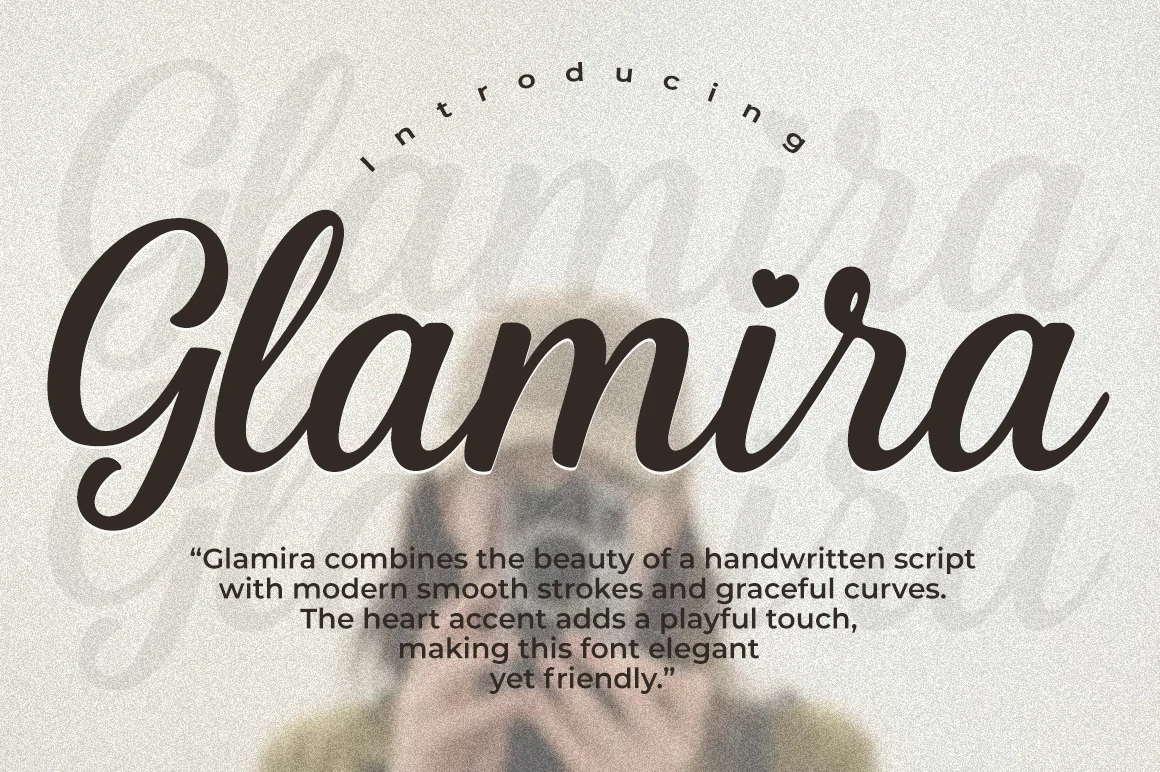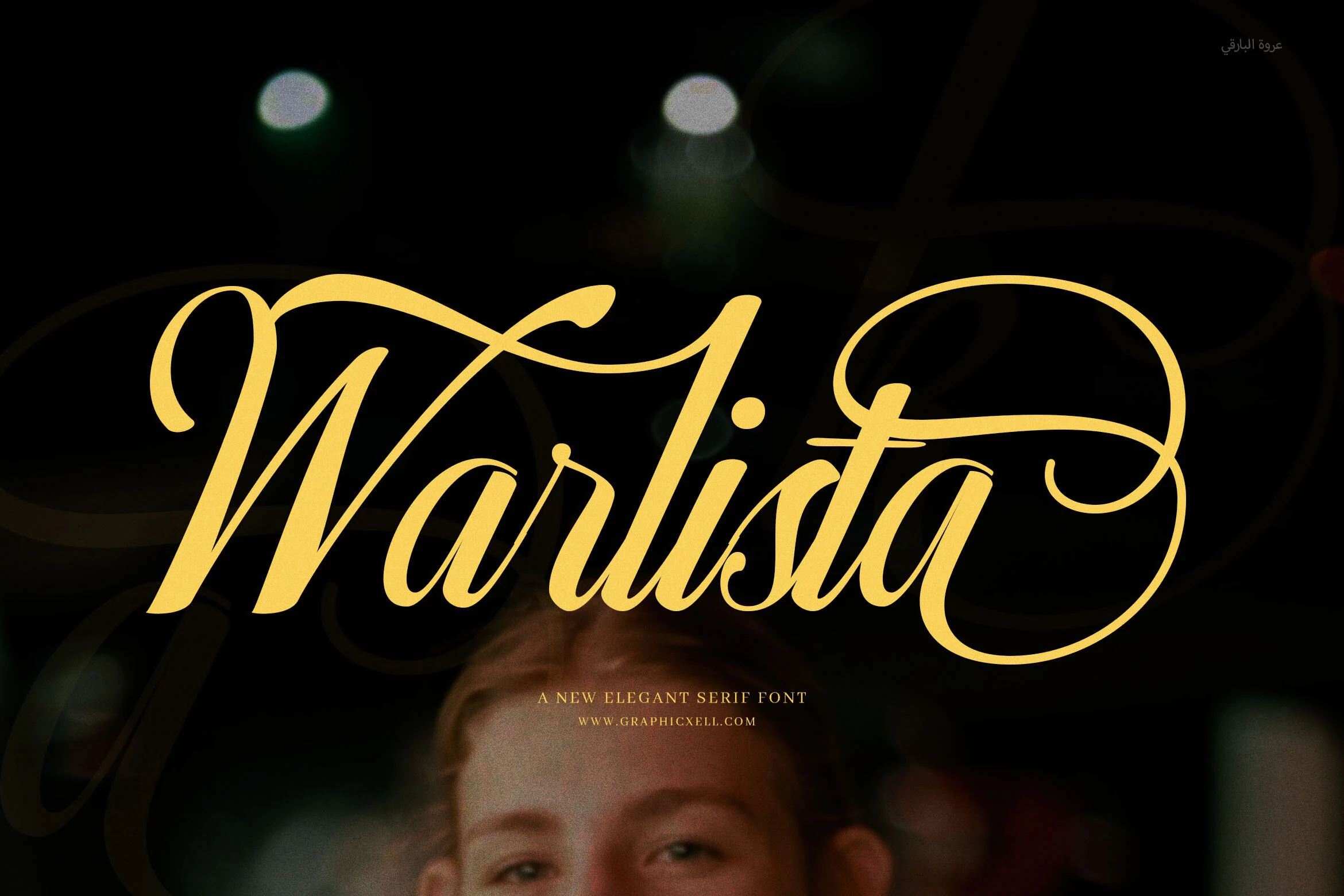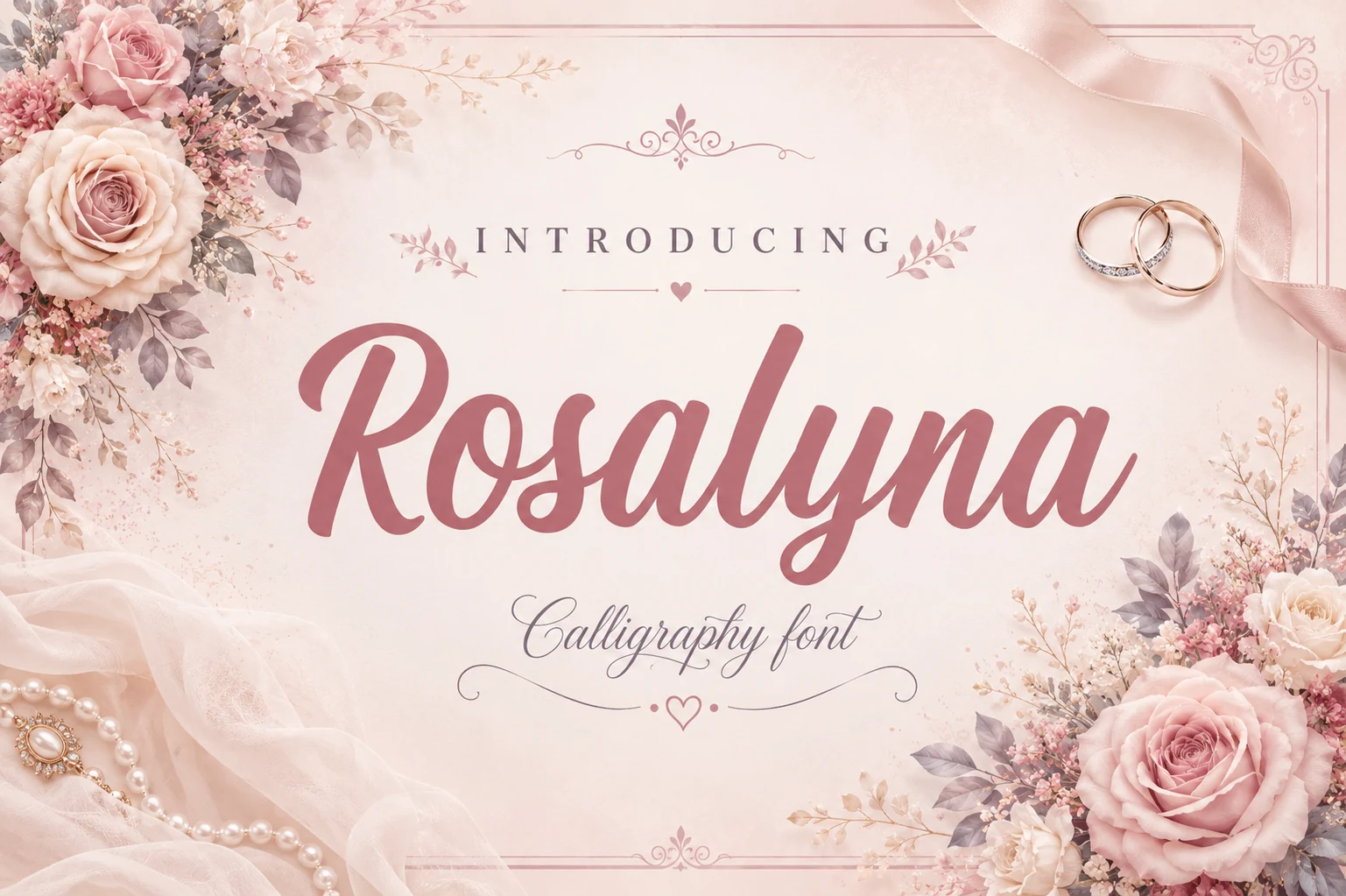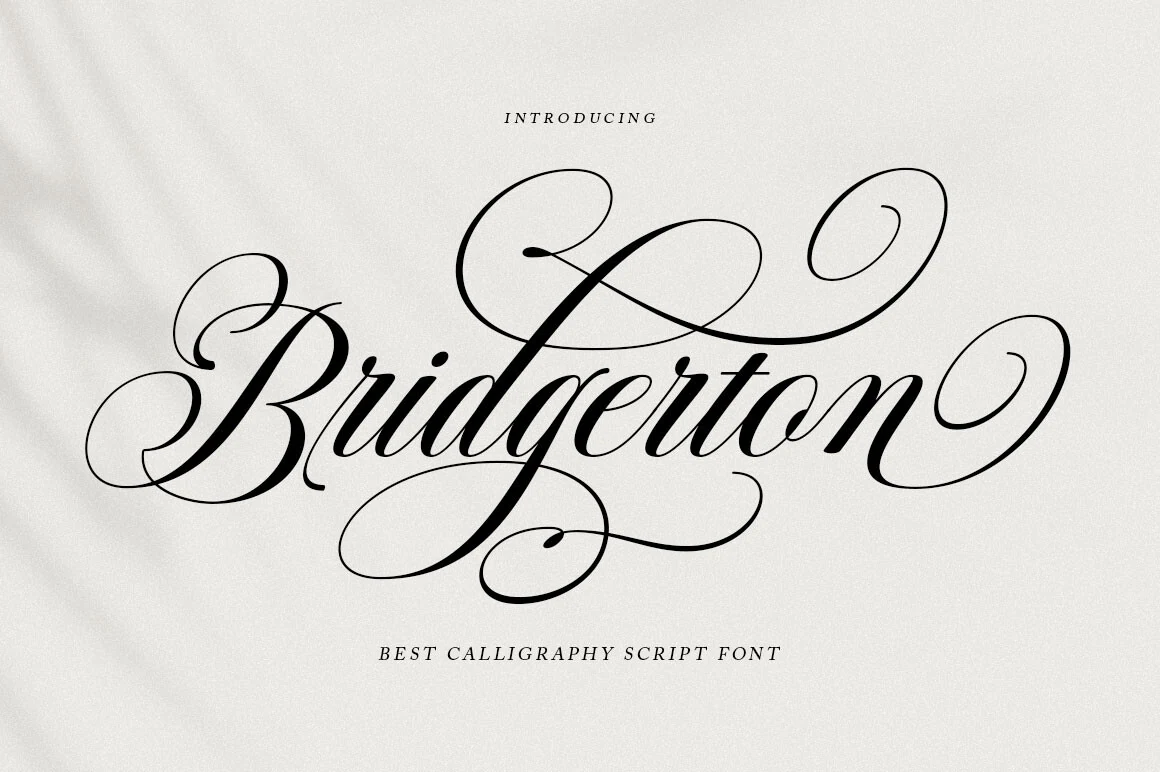
Modern Script Fonts: 19 Stunning Picks for Branding
Modern script fonts help designers build polished logos, invitations, packaging, social graphics, and brand identities with handwritten movement. This collection focuses on clean signature styles, romantic calligraphy, and bold brush scripts that still feel current and usable.
Elegant Signature Modern Script Fonts
These modern script fonts use lighter strokes, clean monoline flow, and signature-style movement for refined logos, personal brands, invitations, and elegant headers.
Royal Wedding Font
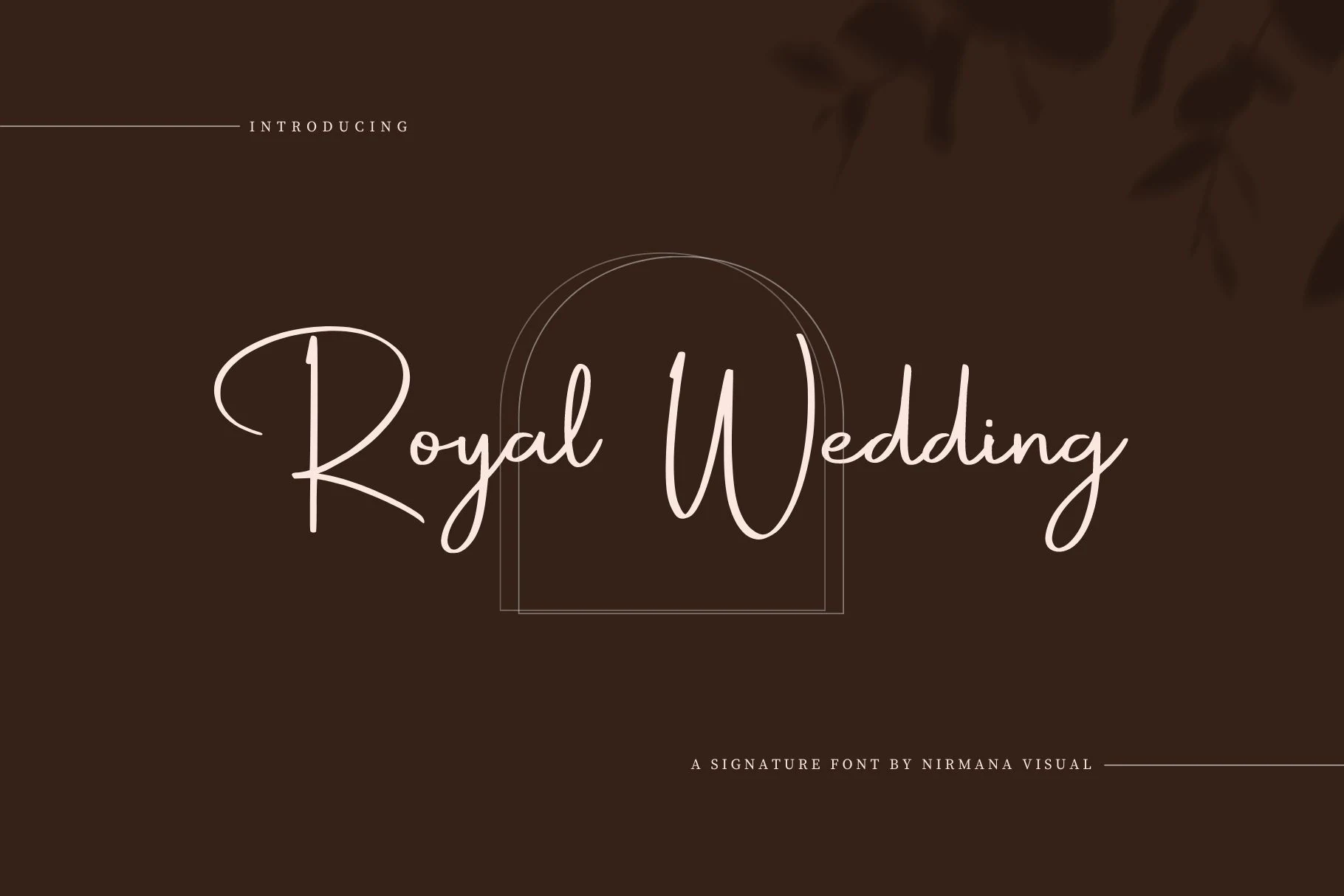
Best For: logos, invitations, wedding designs, personal branding
Royal Wedding Font has a light signature-script feel, built from slim strokes, oversized capitals, and long looping terminals that give the lettering a poised handwritten rhythm. The tall R and W create instant hierarchy, while the even line weight keeps the style soft rather than overly formal.
Within Modern Script Fonts, it suits short names and elegant wordmarks best. Leave a bit of breathing room around the capitals and use it at display size, since the delicate lines and extended loops read most clearly when they are not competing with dense supporting text.
Halimun Font
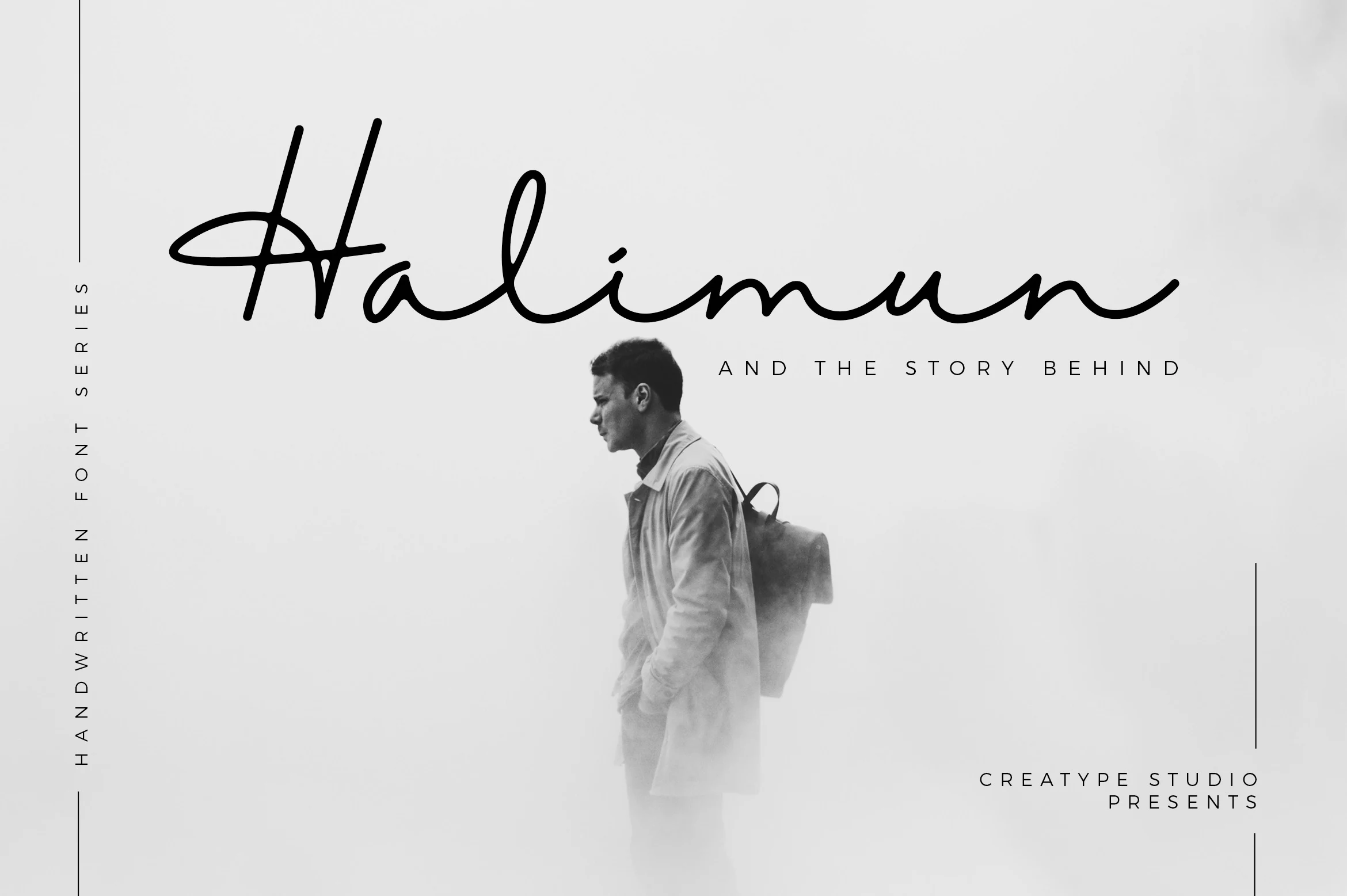
Best For: logos, branding, website headers, personal branding
Halimun Font has a clean monoline script style with tall ascenders, airy connections, and a long gliding rhythm that feels polished without losing its handwritten warmth. The capital H gives it a memorable entry, using a broad flourish that adds character while keeping the word easy to read.
In Modern Script Fonts, Halimun works especially well for logos and headers where the line quality can stay visible. Pair it with small uppercase sans text for contrast, and avoid crowding the letters, since the generous width and smooth joins create a calmer, more refined title hierarchy with a bit of space around them.
Shake Font
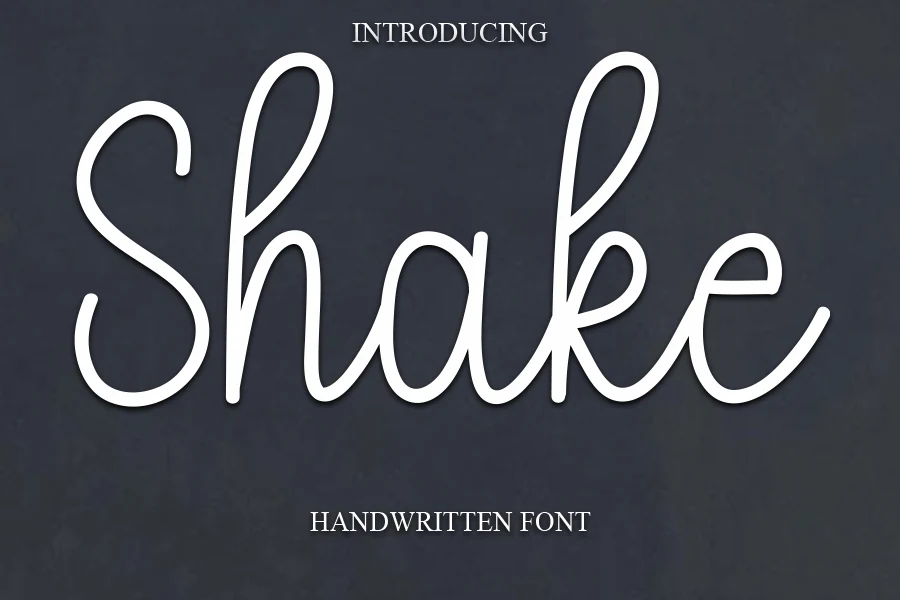
Best For: logos, invitations, wedding designs, personal branding
Shake Font has a light monoline script style with tall looping ascenders, a broad open S, and rounded connections that keep the lettering soft and easygoing. The strokes stay slim and even, giving it a clean handwritten feel that looks polished without becoming stiff.
For Modern Script Fonts, this one works best when the long verticals and open curves have room to breathe. It suits short branding lines, names, and invitation headings especially well, and pairing it with a simple serif or quiet sans helps its casual elegance stay clear in the hierarchy.
Aurelia Font
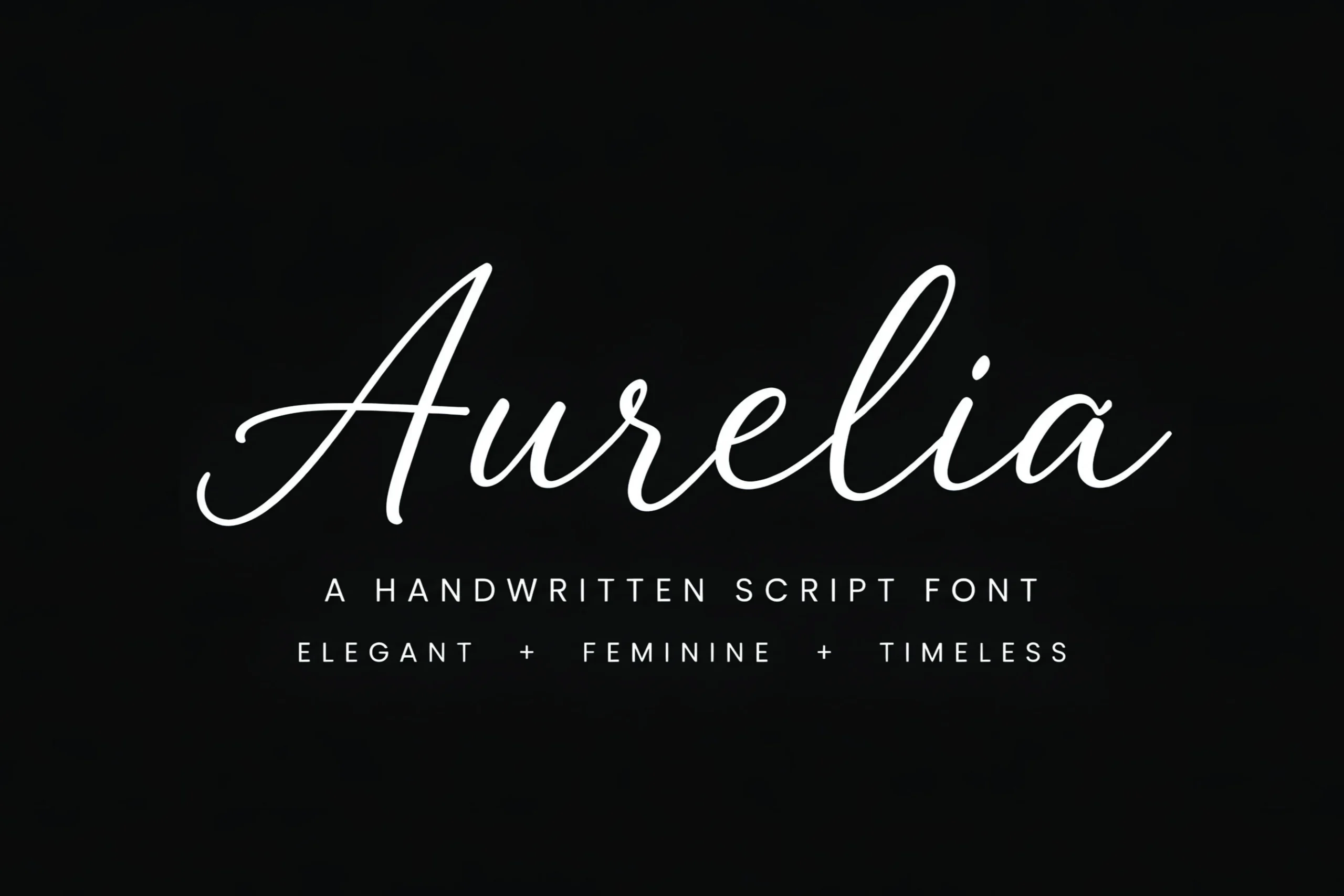
Best For: logos, beauty branding, feminine designs, luxury designs
Aurelia Font has a refined signature look built from thin strokes, smooth joins, and long oval curves that keep the lettering light and poised. The tall capital A sets an elegant tone, while the narrow rhythm and clean monoline flow give the script a polished, contemporary finish.
For Modern Script Fonts, Aurelia works best when the wording stays short and the spacing is allowed to breathe. Its delicate structure suits logo signatures and premium packaging especially well, because the fine lines hold their grace when paired with quiet supporting type and strong contrast.
Amastay Font
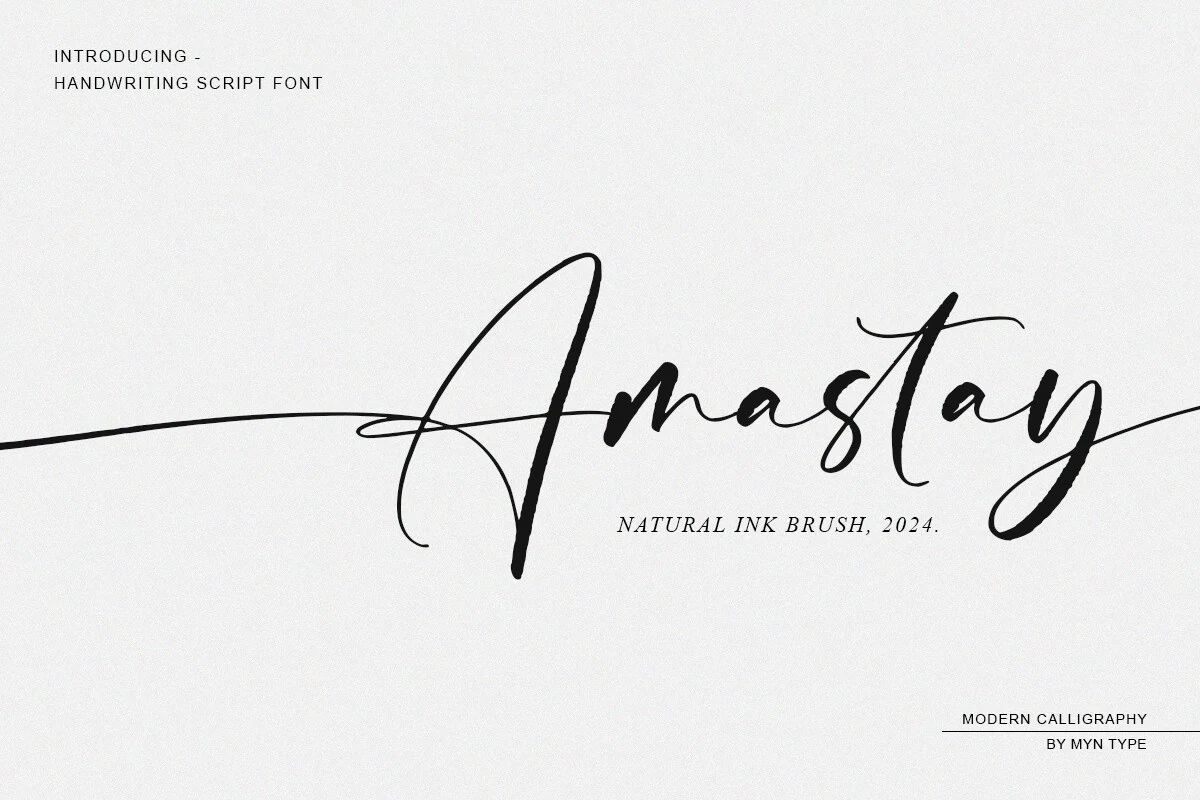
Best For: logos, invitations, wedding designs, feminine designs
Amastay Font has a refined ink-brush character, with slender upstrokes, darker downstrokes, and a tall capital A that turns into a graceful flourish. The connected letters keep a natural handwritten rhythm, while the slight texture in the strokes gives the script a more personal, calligraphic edge.
Among Modern Script Fonts, Amastay feels especially strong for short names and elegant headings where the long swash tail can stretch out cleanly. Leave extra horizontal space around the wordmark and pair it with restrained supporting type, since the sweeping line already creates the movement and hierarchy.
American Signature Font
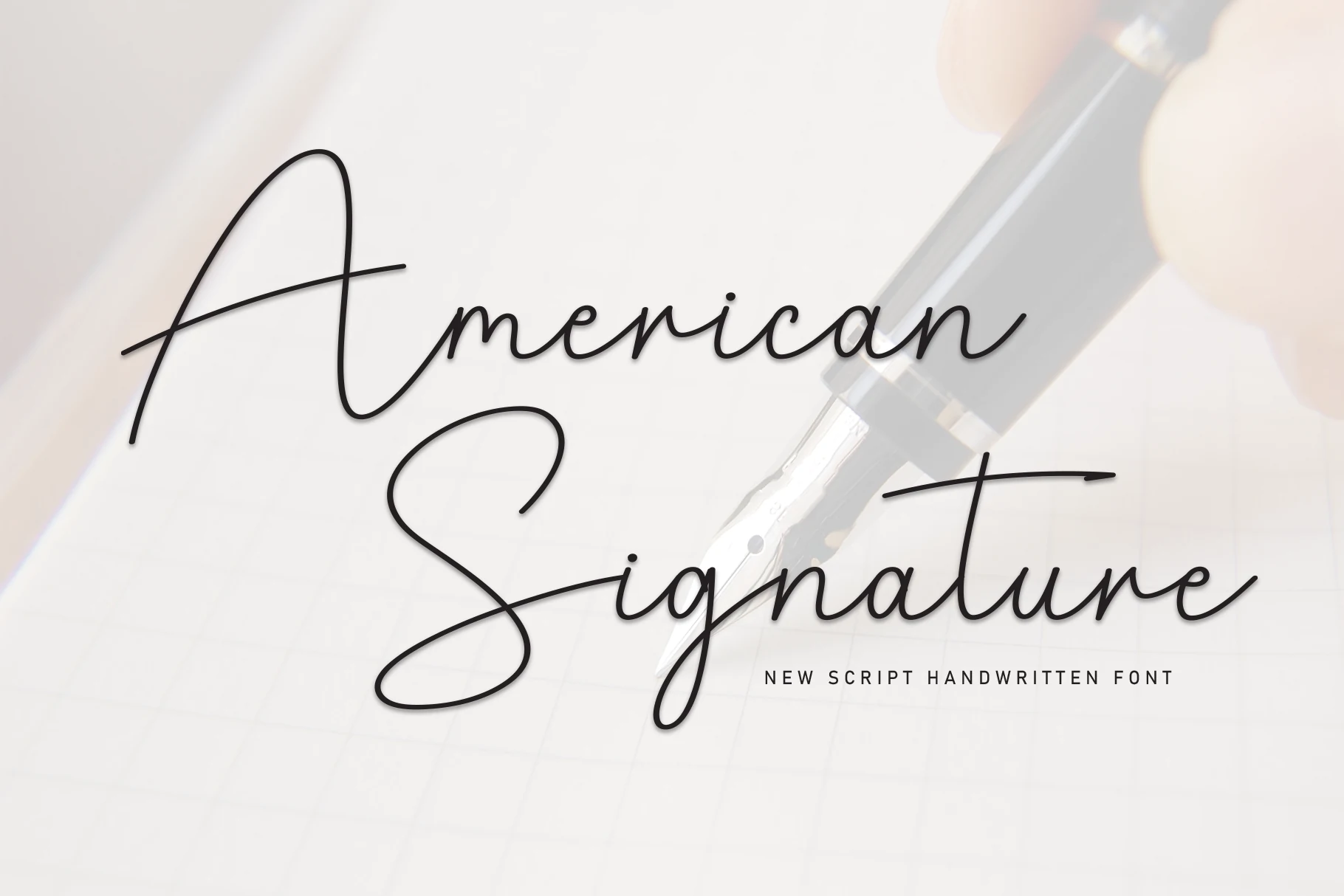
Best For: logos, invitations, wedding designs, personal branding
American Signature Font takes a lighter route through Modern Script Fonts, using a fine monoline stroke, airy spacing, and long sweeping capitals that feel close to real pen movement. The oversized A and S create a clear signature effect, while the simple lowercase keeps the script polished and easy on the eye.
It works best for names, short phrases, and identity pieces where a personal touch matters more than volume. For invitations, logos, or card fronts, give it space and let the capitals lead the composition, because the slender lines and extended cross strokes can lose impact when the setting gets too tight or text runs too long.
Romantic & Calligraphic Modern Script Fonts
It works especially well for packaging, café branding, posters, and merch where you want a handmade summer mood with clear display presence. Keep it at medium to large sizes and let it carry the main headline, because the dense joins and long underline swash read best when the supporting text stays simple.
Conclusion
Choose elegant signature scripts for refined identities, romantic calligraphic styles for invitations and luxury layouts, and bold brush or display scripts when the design needs stronger movement, contrast, and headline impact.